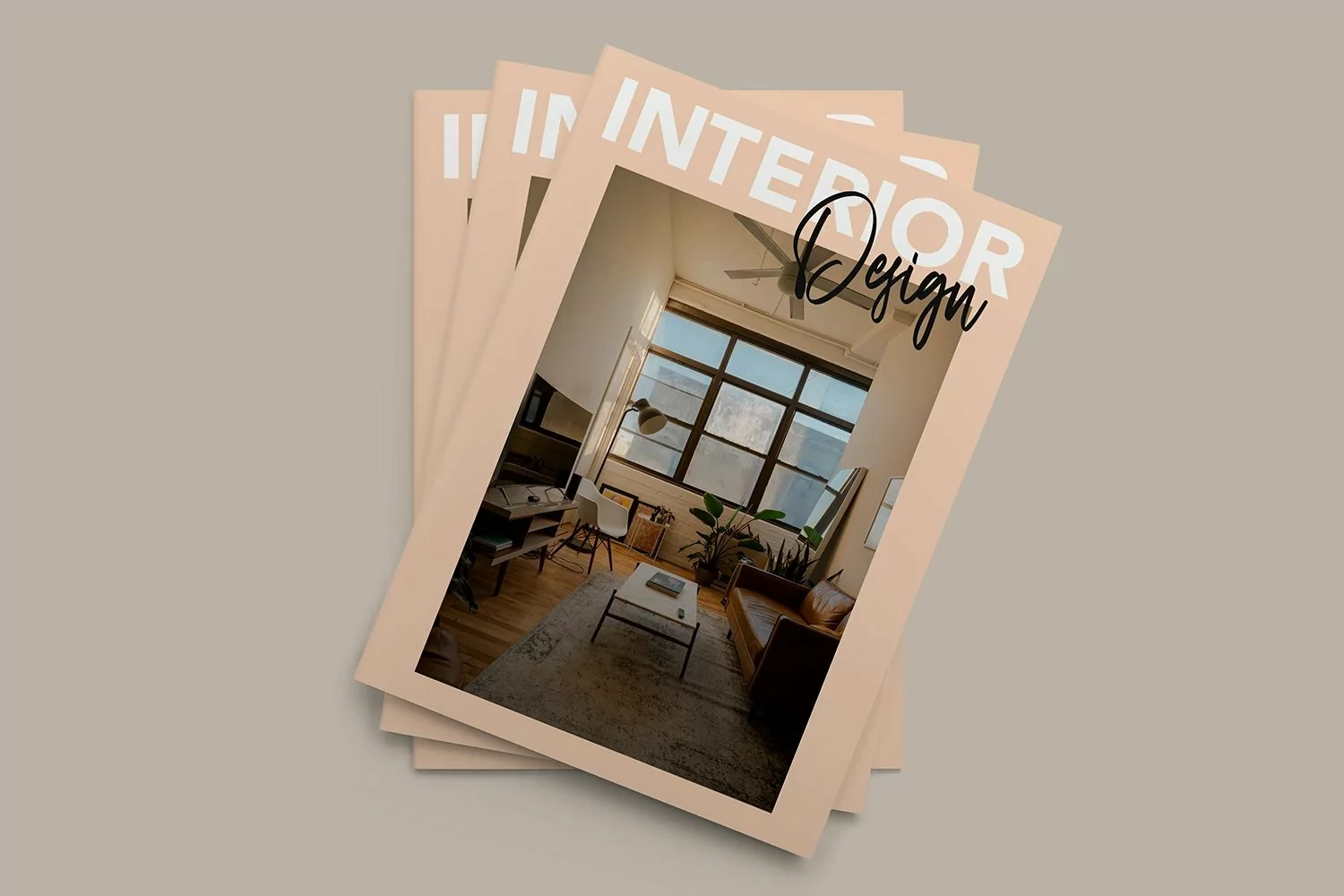
Web Font Dogwood - Cool Handwritten Font
Dogwood - Cool Handwritten Font that contain lowercase, uppercase, symbol, and also support multi language. There’s a lot ligatures in this font. This Font also comes with ligatures, alternates and many more. this font suitable for fashion, branding, catalog and other design what you want.